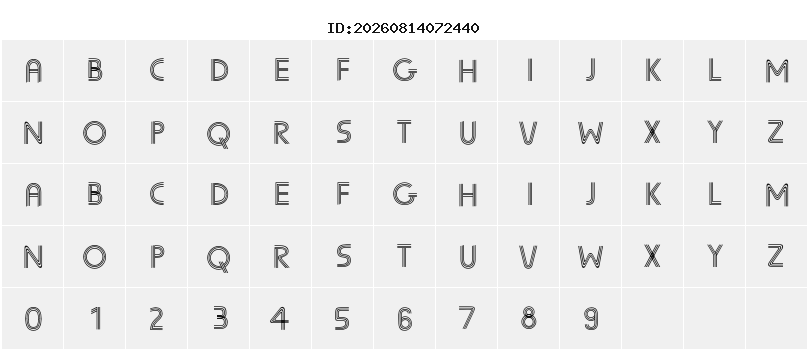
• Font Name: Sunscreen Triline Equal
• Designer: Simon Cozens
About Sunscreen Triline Equal.otf
Sunscreen Triline Equal.otf is a modern, elegant sans-serif font designed for ultimate readability and visual harmony. Perfect for branding, headlines, web design, and print materials.